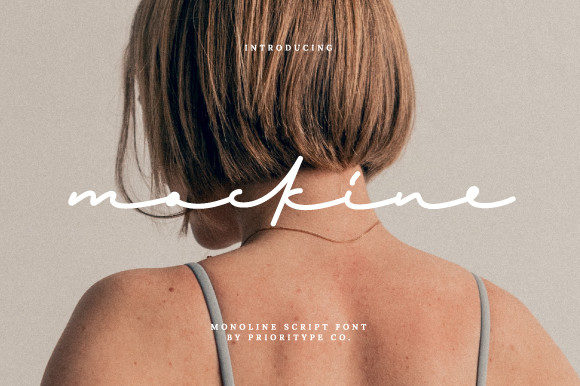
Introducing Mockine Font, a masterpiece of Monoline Script with the captivating charm of natural hand strokes. This font is not just a collection of letters; it's an artistic journey that brings your words to life. With its stylish flair, Mockine Font effortlessly elevates any project, adding a touch of elegance and sophistication.
Unlock the potential of your creative visions with Mockine Font, the perfect choice for those who seek individuality and authenticity. Its versatile style seamlessly blends with any design concept, whether it's a heartfelt wedding invitation, a heartfelt thank-you card, or an inspiring quote. Let your words dance with grace and allure as they take shape in Mockine's enchanting curves.
Step into the realm of visual storytelling with Mockine Font. Its exquisite flow and elegant strokes transform ordinary texts into captivating narratives. With Mockine Font, your designs will exude an air of timeless beauty, leaving a lasting impression on your audience.
Imagine your wedding invitations adorned with Mockine's graceful lines, inviting your guests to a celebration of love and joy. Picture your thank-you cards expressing heartfelt gratitude, each word a testament to your appreciation. Let Mockine Font accompany your quotes, turning them into works of art that inspire and uplift.
In the world of branding, Mockine Font stands as a beacon of distinction. Its unique style lends a touch of exclusivity to business cards and logos, setting your brand apart from the ordinary. Unleash the power of Mockine Font to create a visual identity that resonates with your audience, leaving an indelible mark in their minds.
Mockine Font is more than just a font; it's an investment in your creative potential. With its versatility and timeless appeal, Mockine Font becomes an invaluable asset in your design arsenal. Embrace the endless possibilities that await you, and let your imagination soar with Mockine Font as your trusted companion.